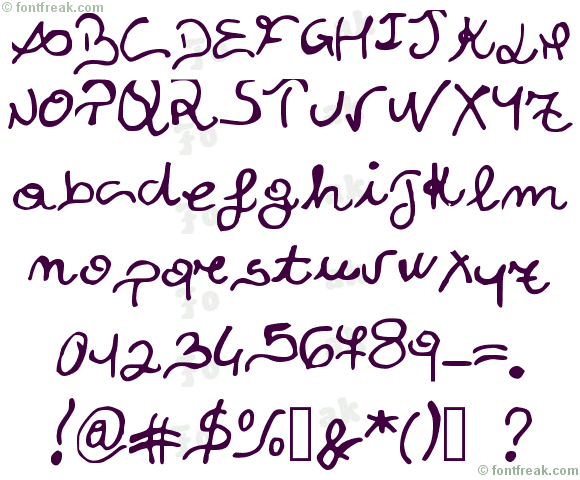
JDTreasure
JDTreasure — Character Map
About JDTreasure
JDTreasure, created by Jecko Development and available as a freeware, is a unique handwritten font that captures the essence of casual elegance. This font showcases fluid, organic strokes with varying weight, giving it a dynamic and lively appearance. The playful curves and whimsical flourishes make it an ideal choice for projects that require a personal touch. The spacing between characters is generous, allowing for easy readability while maintaining a relaxed vibe.
The visual characteristics of JDTreasure are defined by its informal yet artistic style, making it a great fit for a variety of design applications. The slightly uneven stroke weight adds to its handcrafted feel, enhancing the overall aesthetic. This font is adorned with subtle decorative elements that give it a charming, inviting appearance.
JDTreasure is particularly well-suited for wedding invitations, where its romantic style can beautifully convey the joy of the occasion. It also shines in restaurant menus, where its approachable design can evoke a sense of warmth and hospitality. Additionally, JDTreasure works wonderfully for greeting cards and social media graphics, allowing content creators to express creativity with ease. Graphic designers seeking to add a personal flair to branding materials will find this font to be an invaluable asset.
The target audience for JDTreasure includes graphic designers, small business owners, and content creators who appreciate the nuanced beauty of a handwritten font. Its versatility and charm make it a standout choice for anyone looking to infuse their projects with personality.